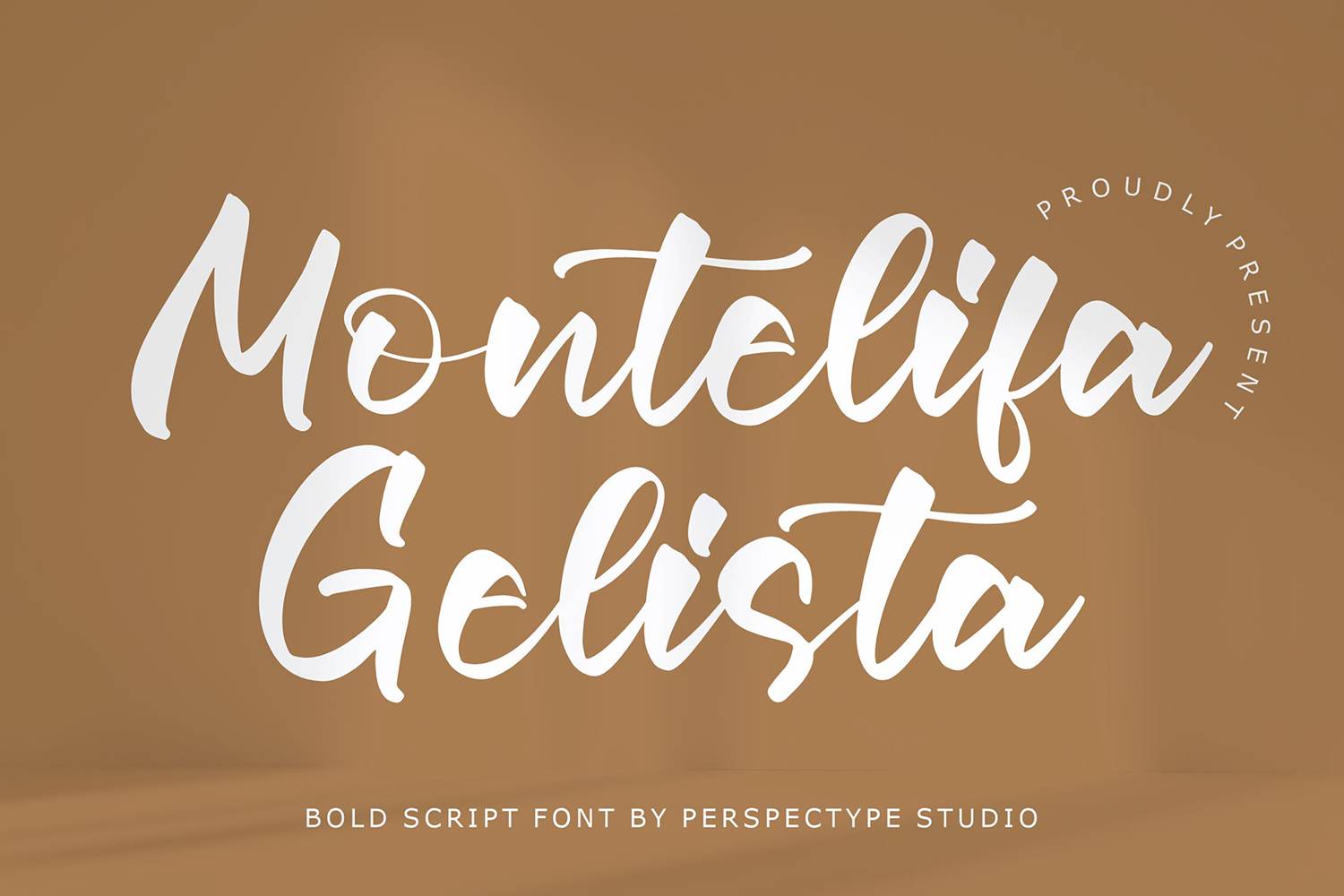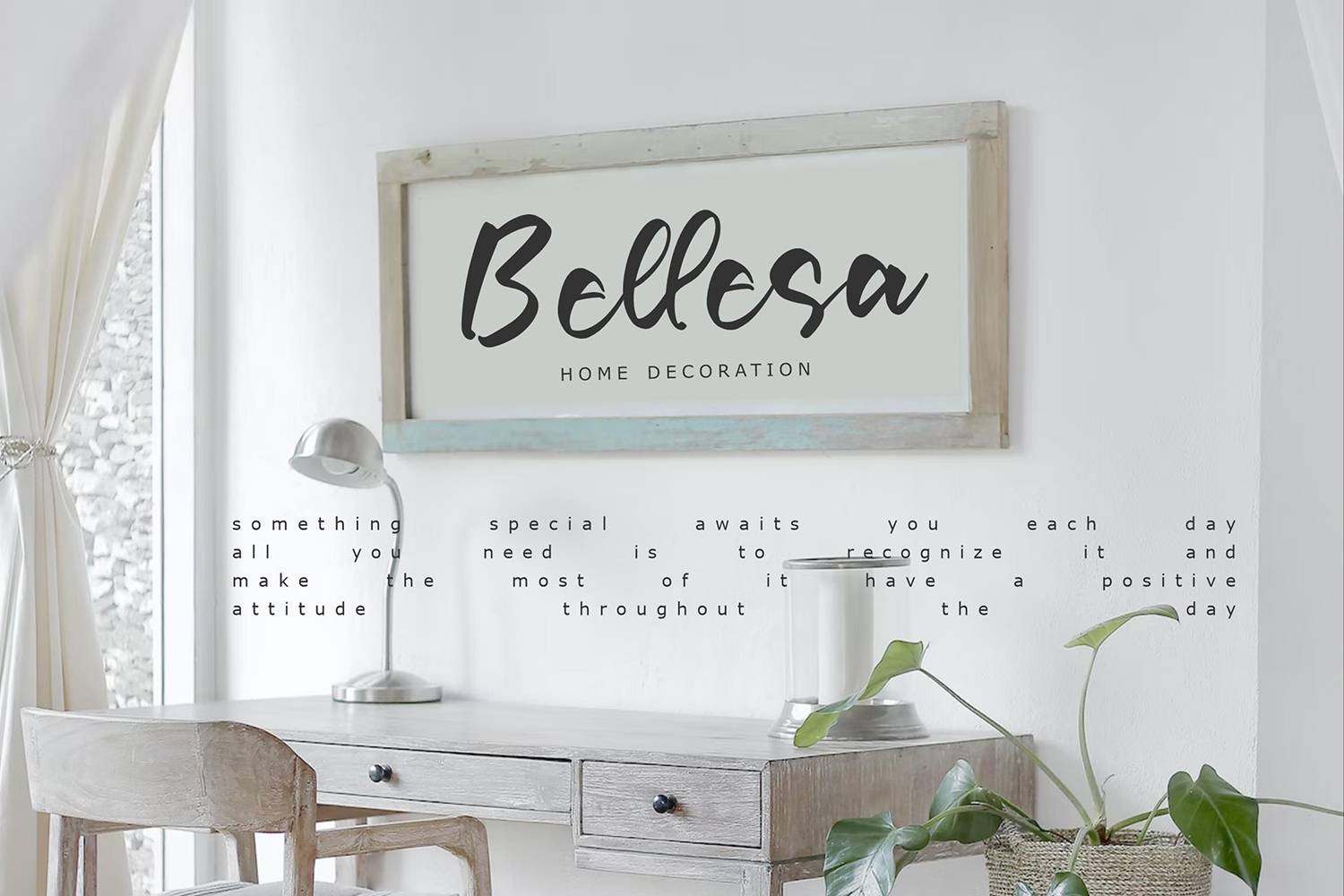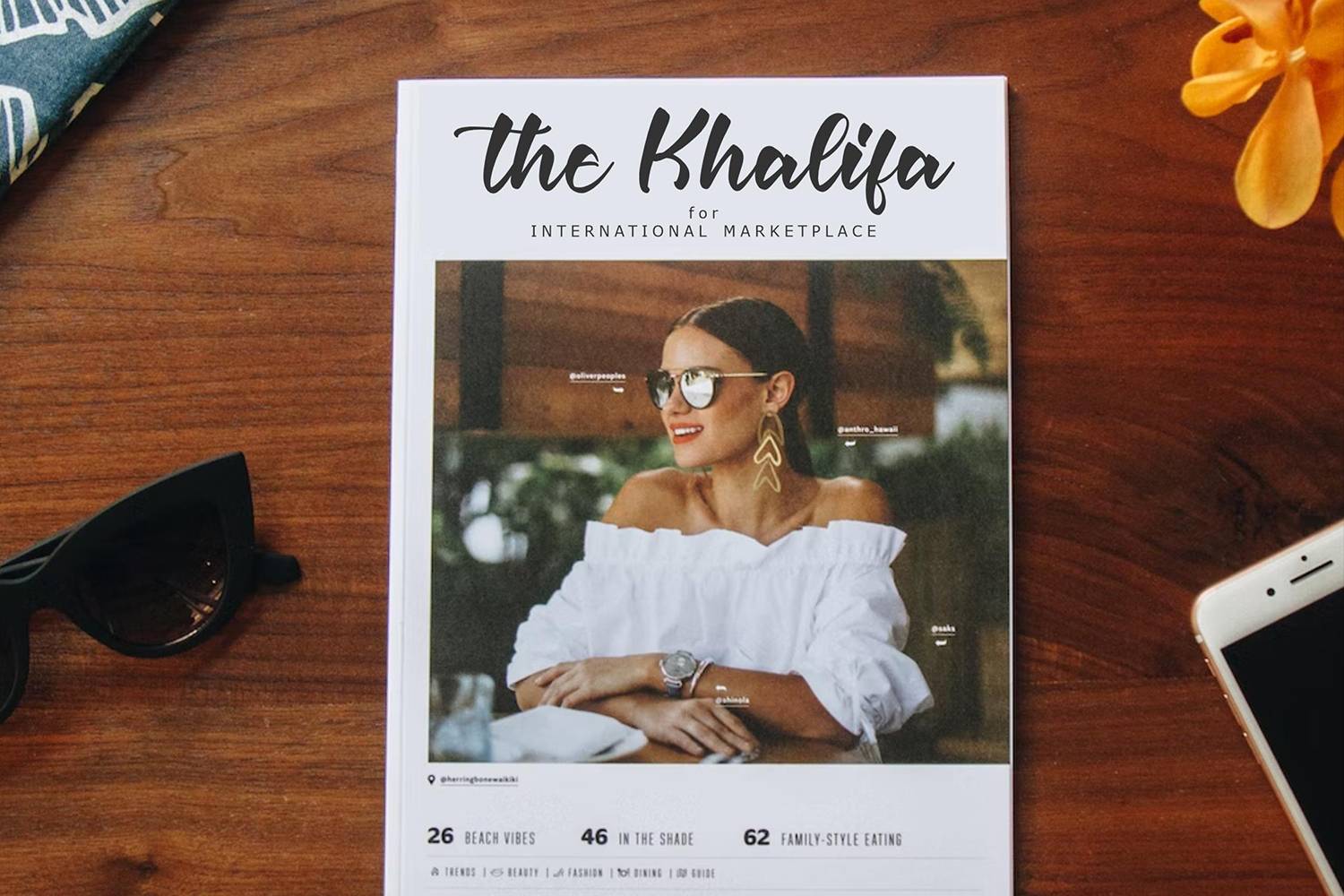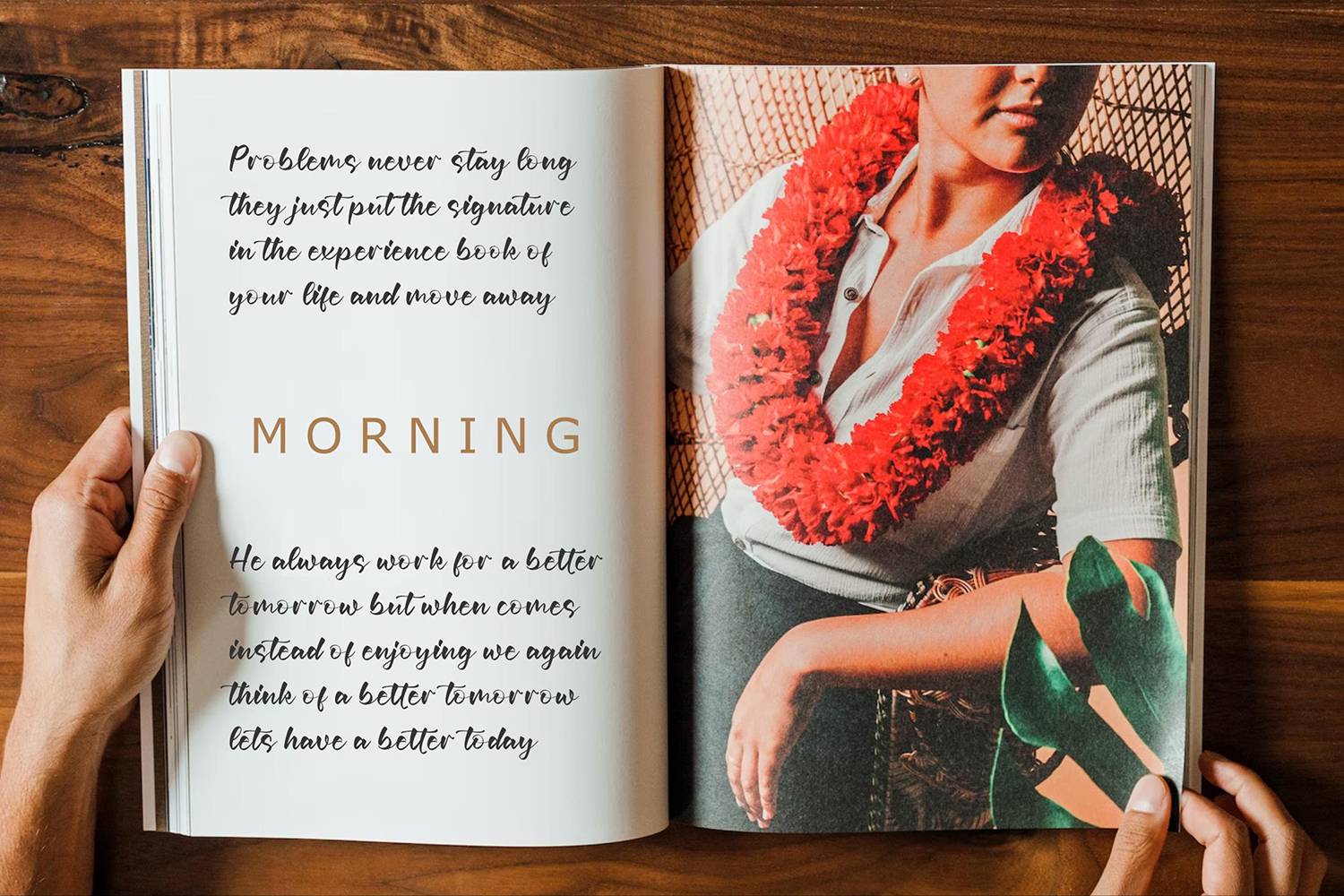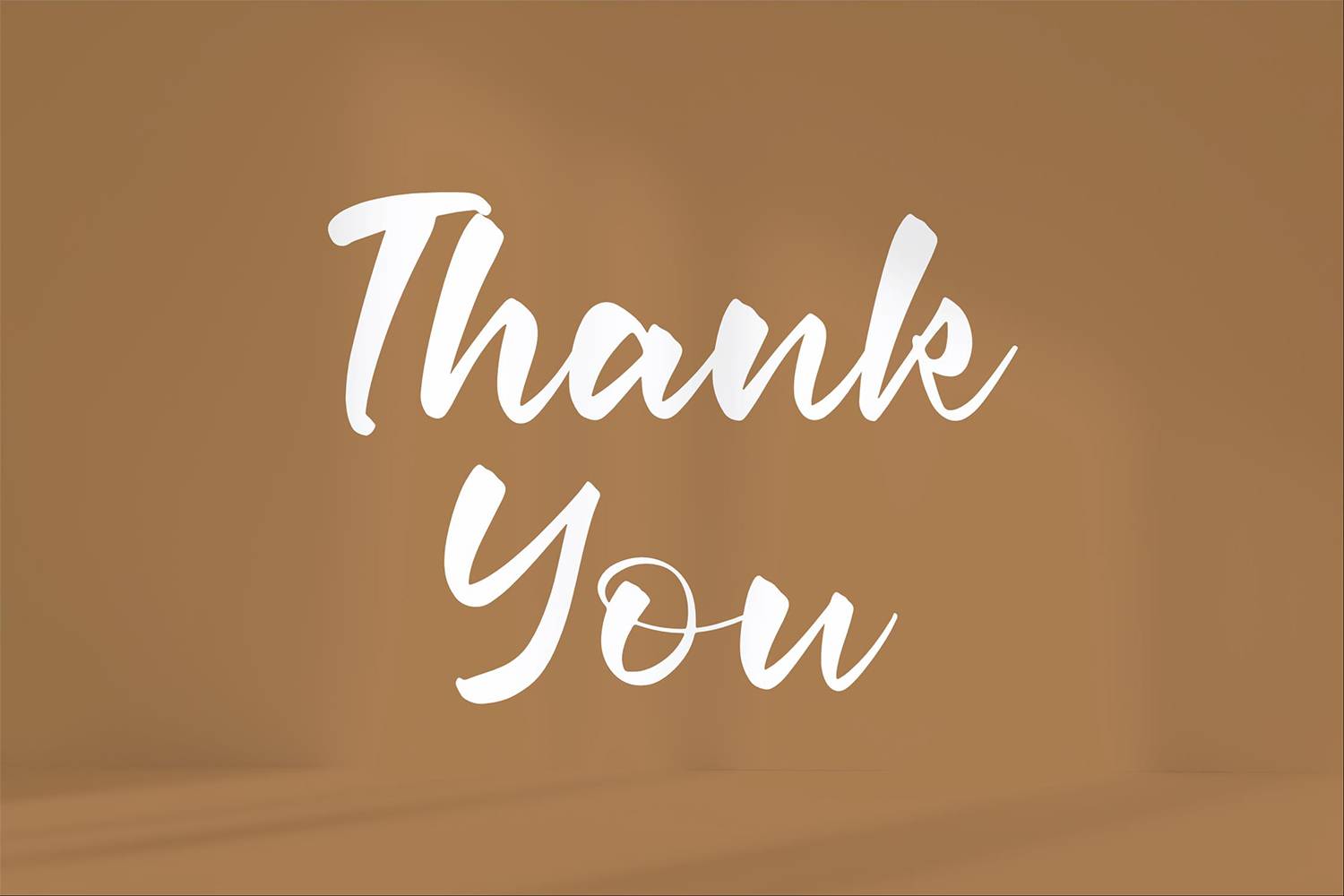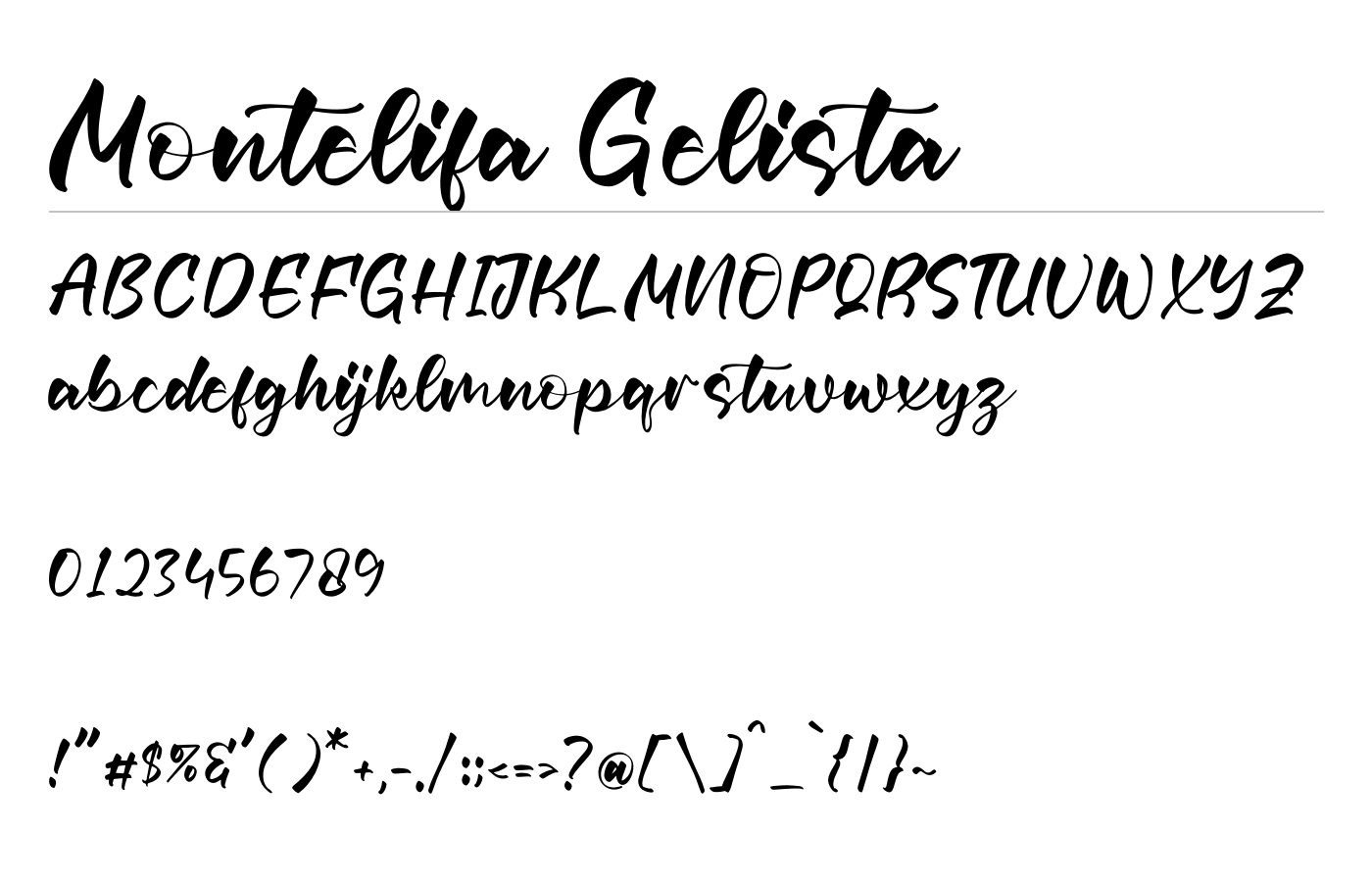
Montelifa Gelista is a lively and expressive script font that mimics natural handwriting with bold, flowing strokes and a casual yet refined style. Its upright, brush-like characters offer a friendly and artistic feel, making it perfect for creative projects, branding, and invitations where a personal touch is desired. This font works well for headlines and logos that need a warm, approachable, and dynamic look.
Montelifa Gelista Font